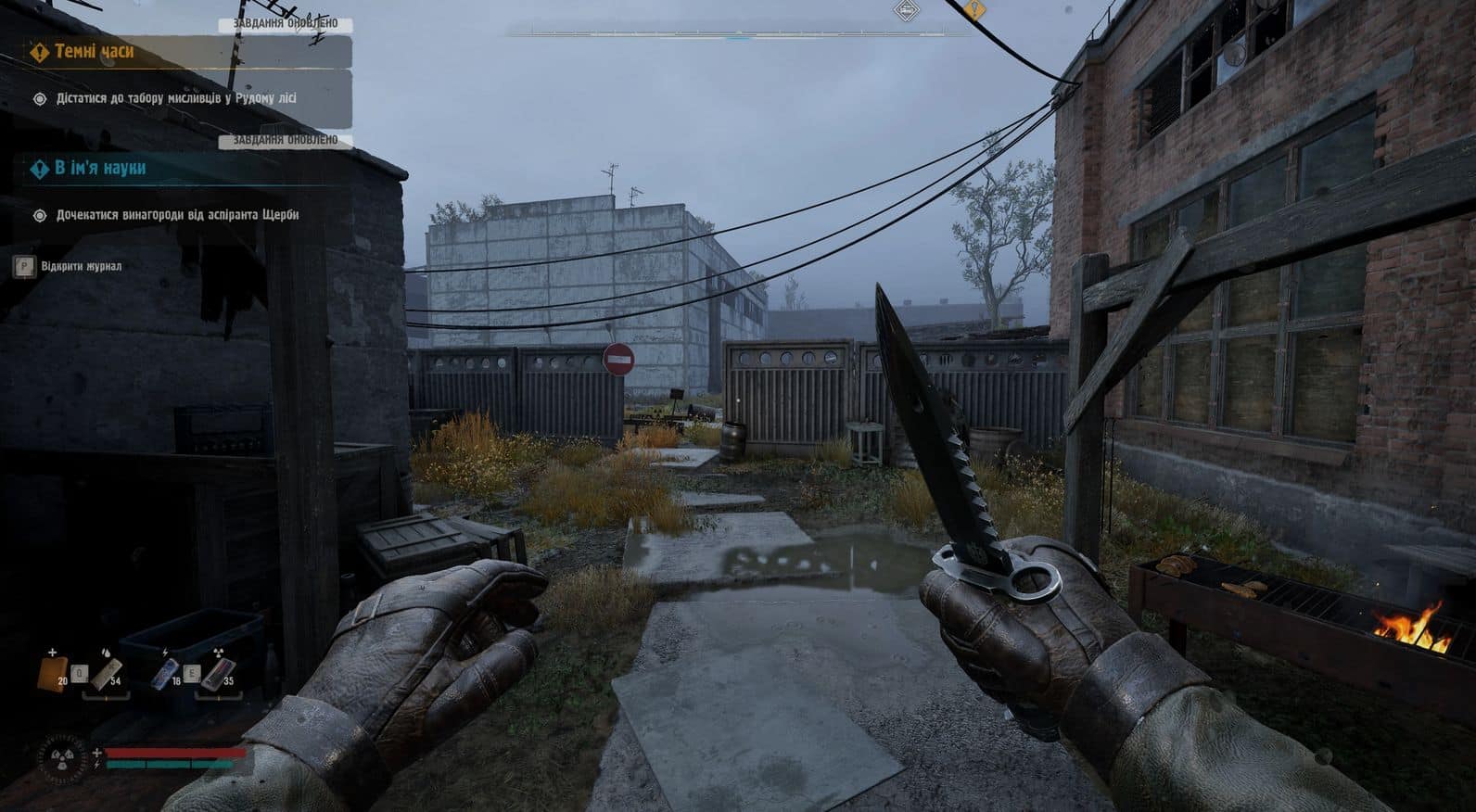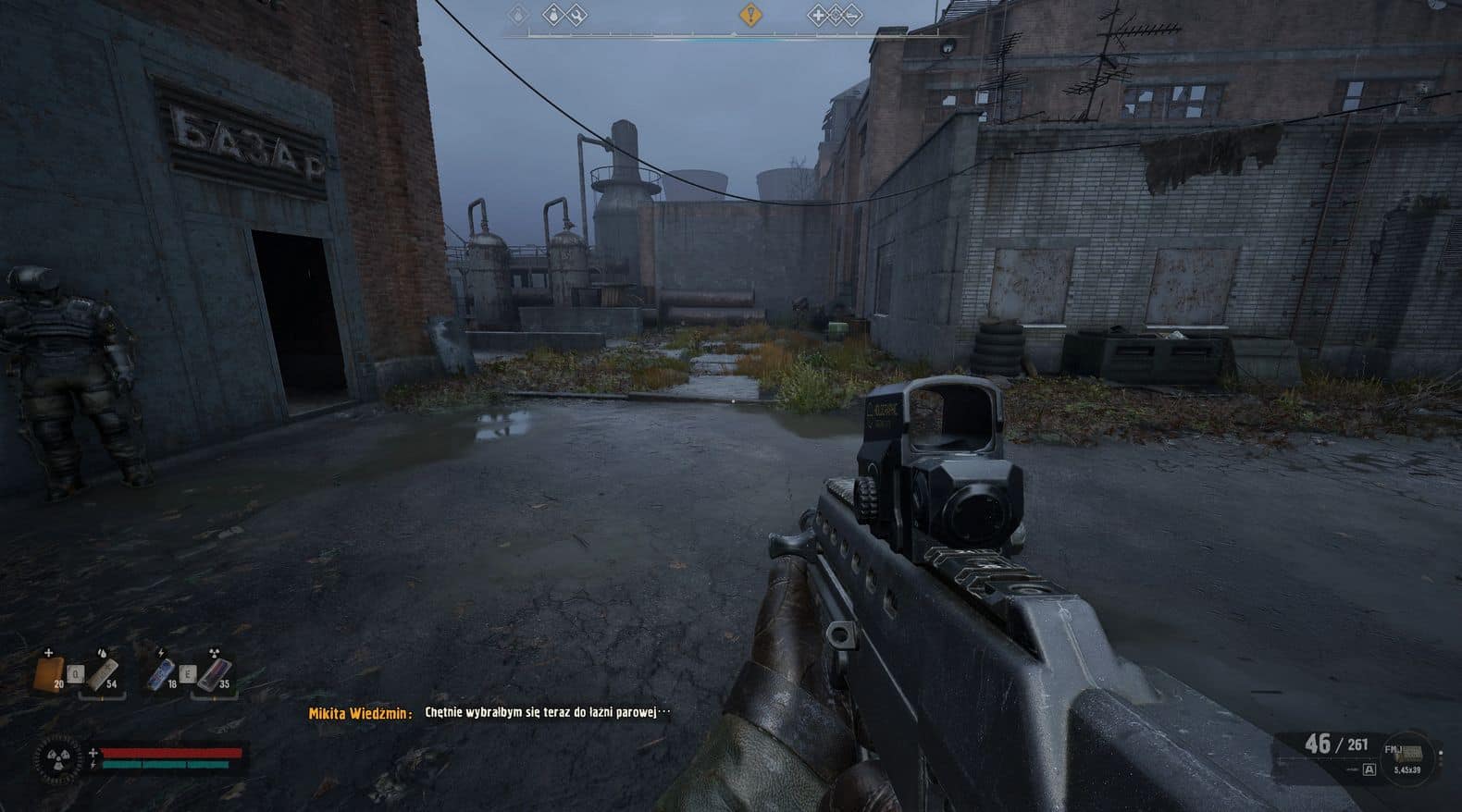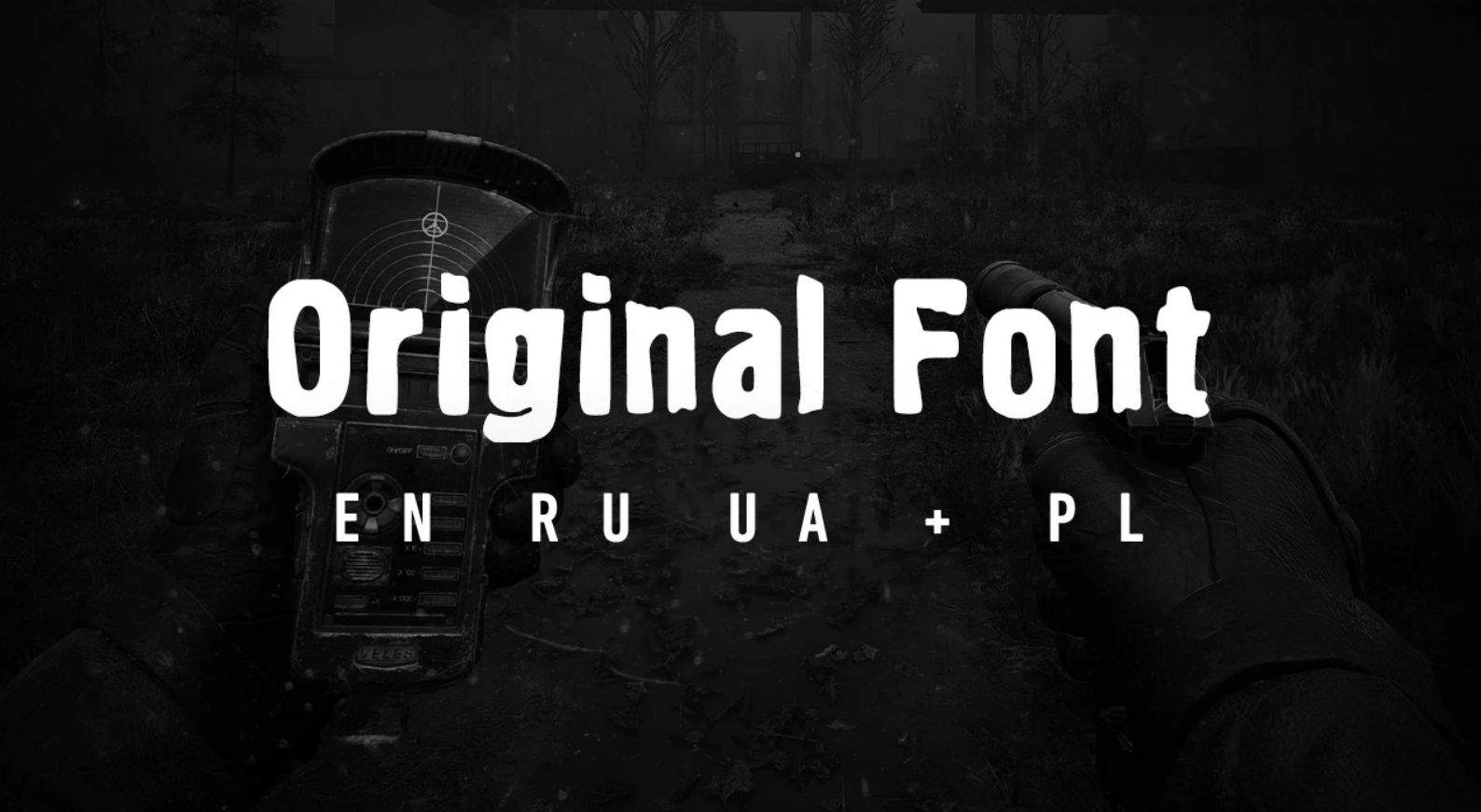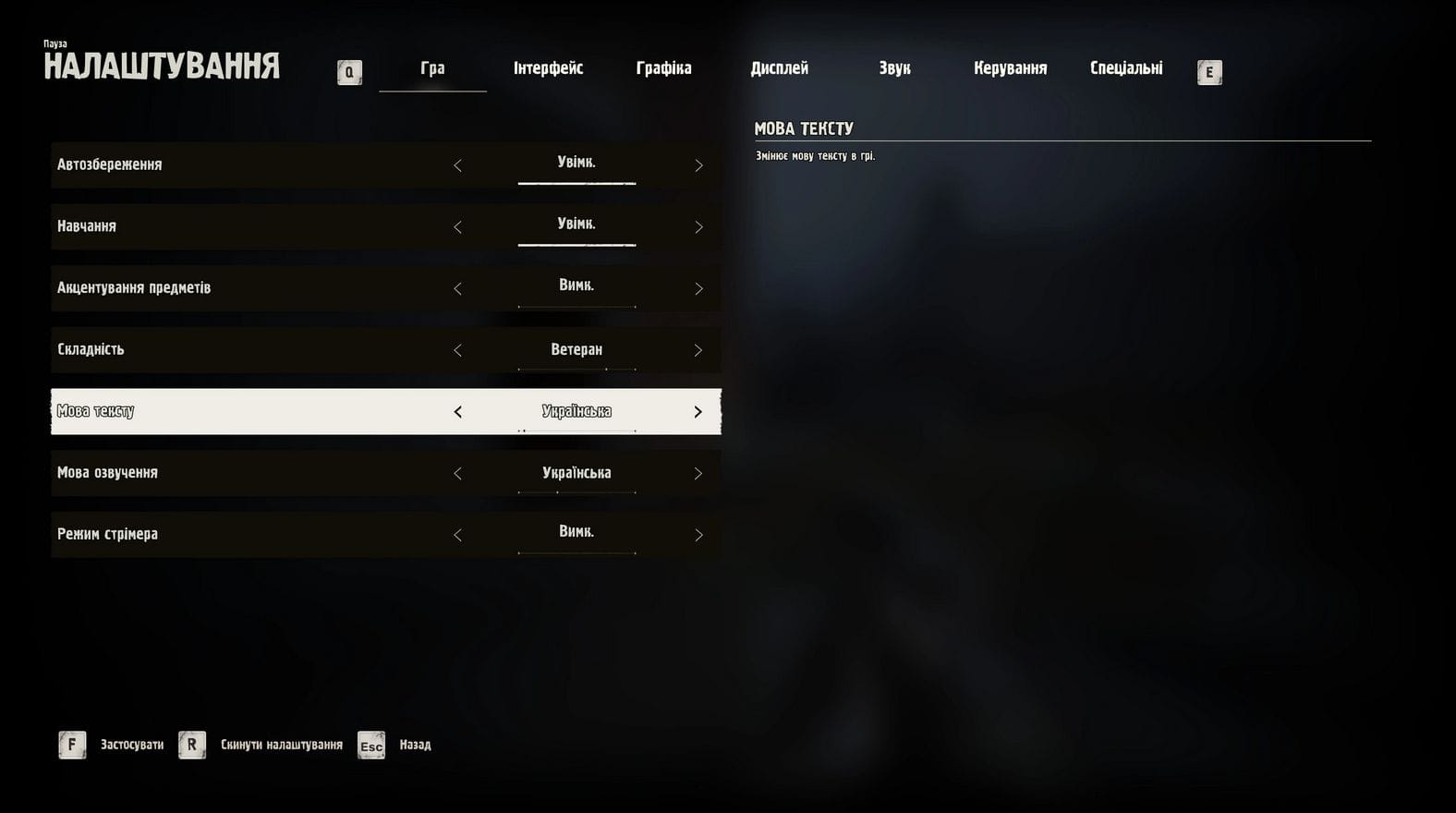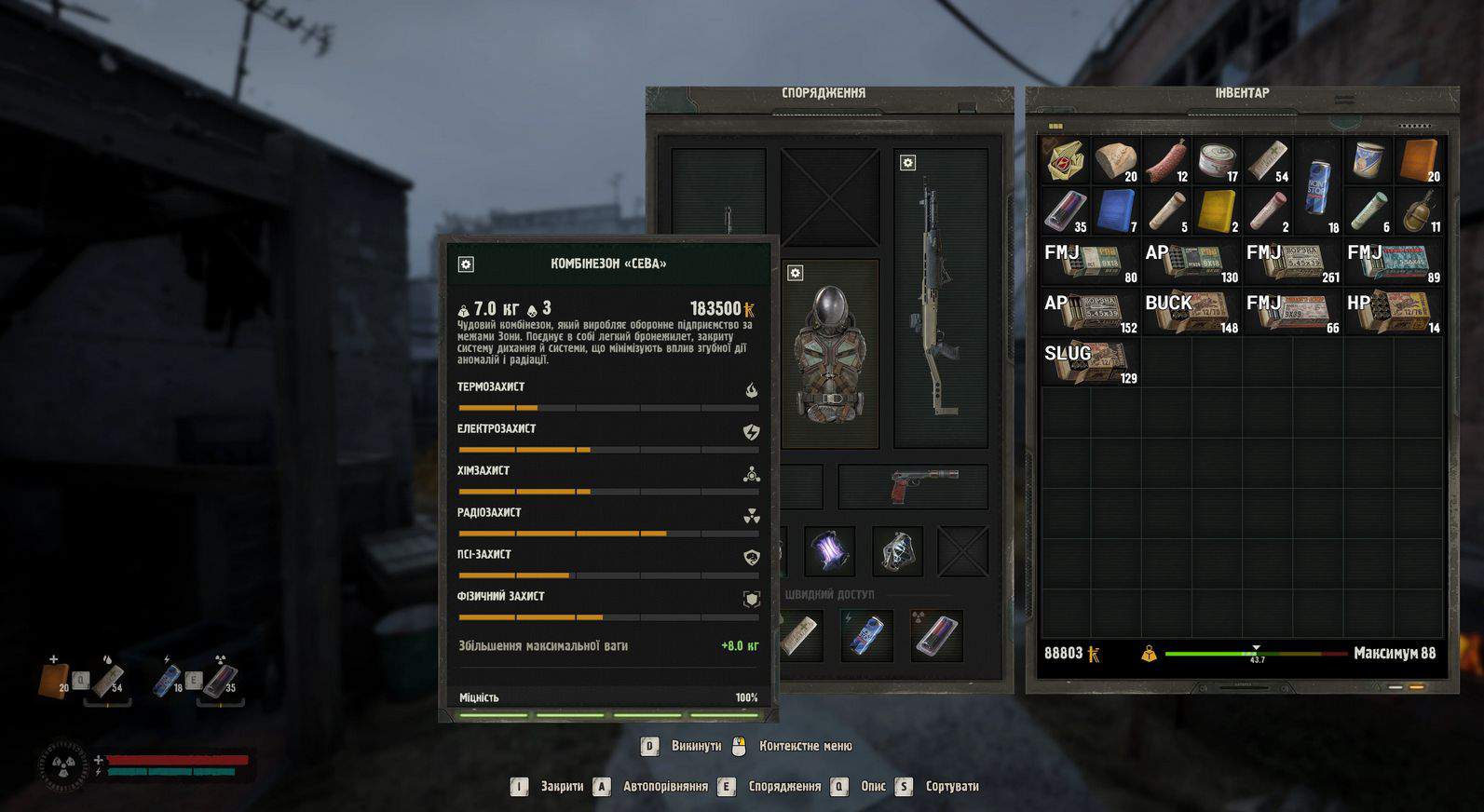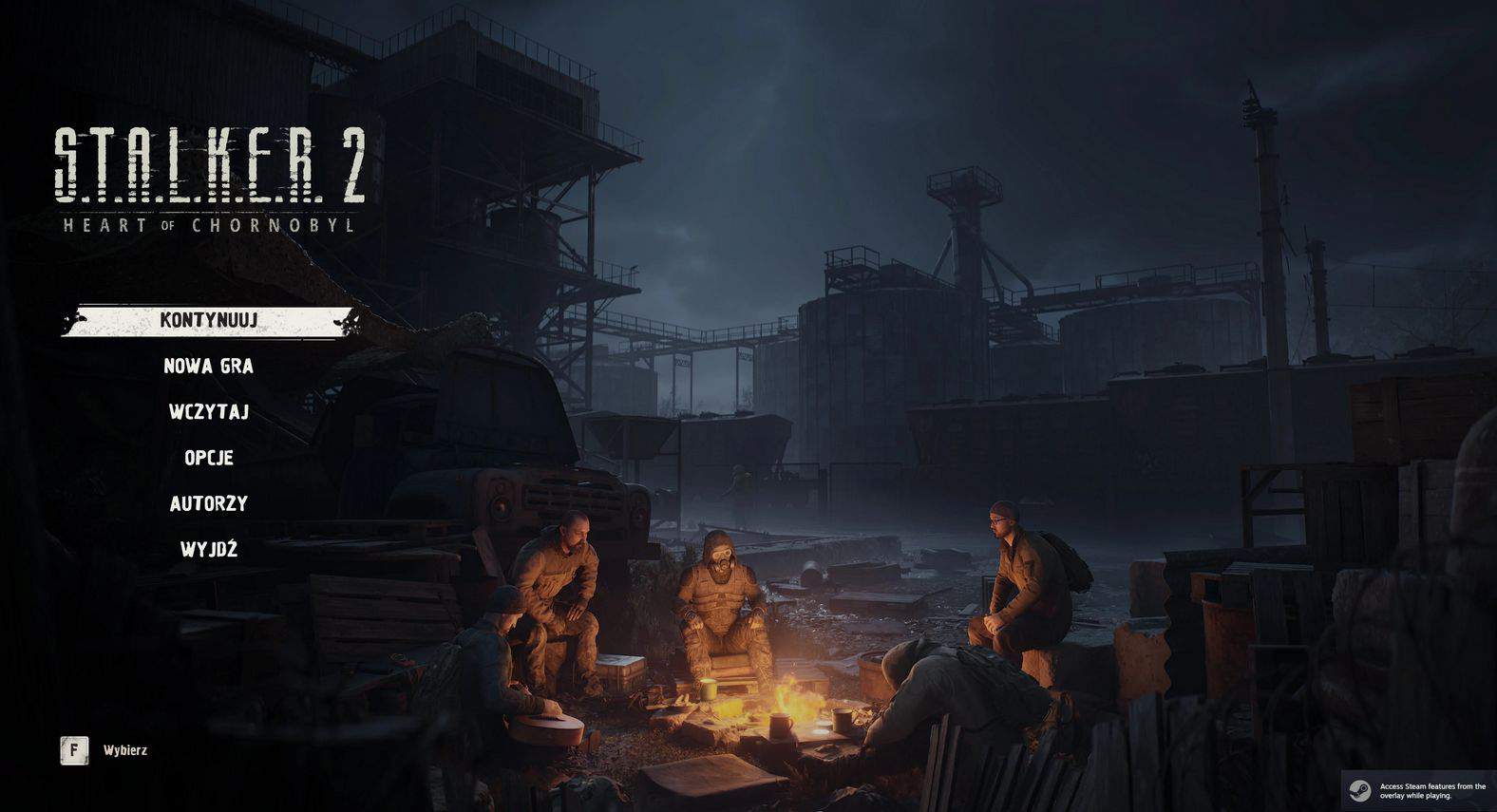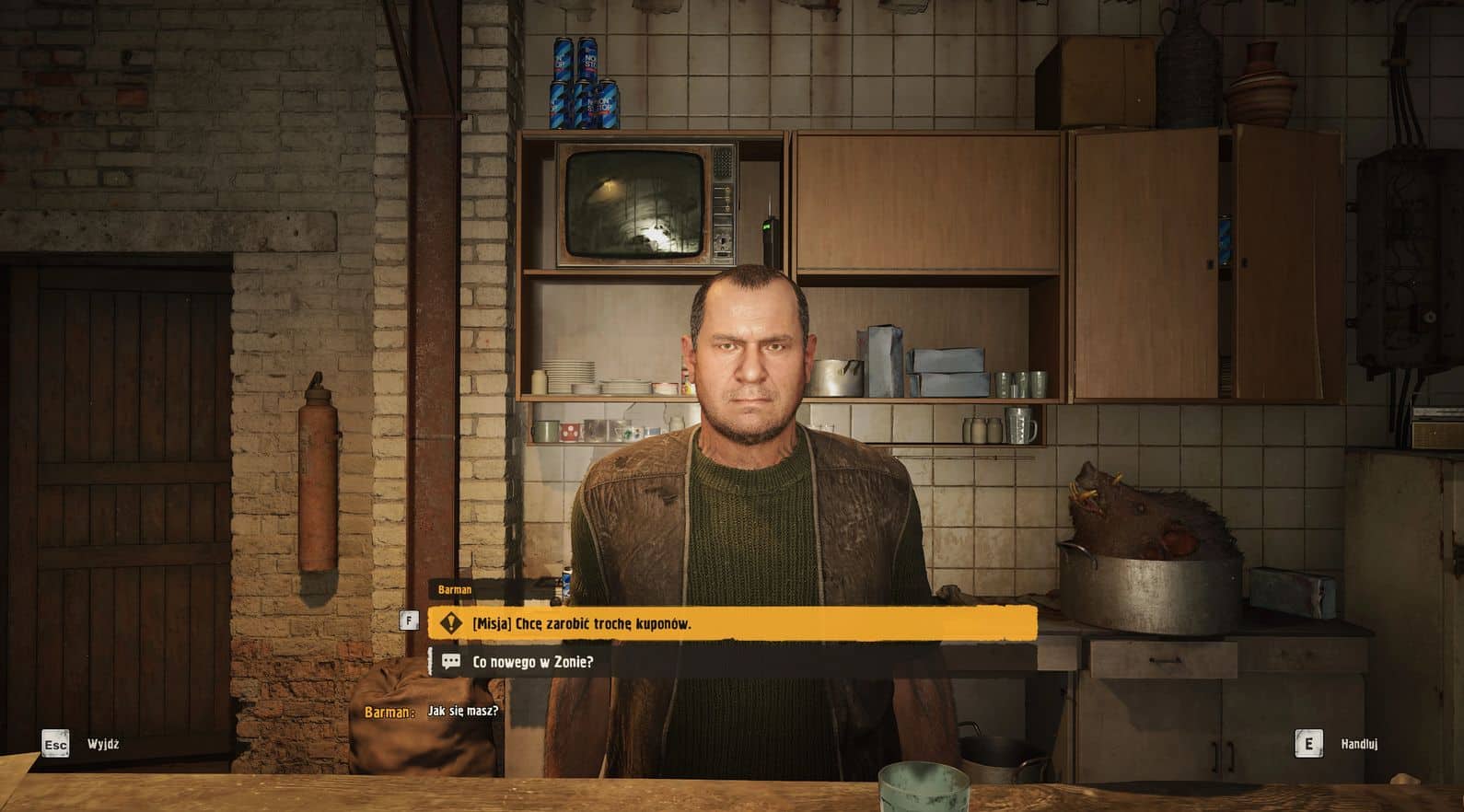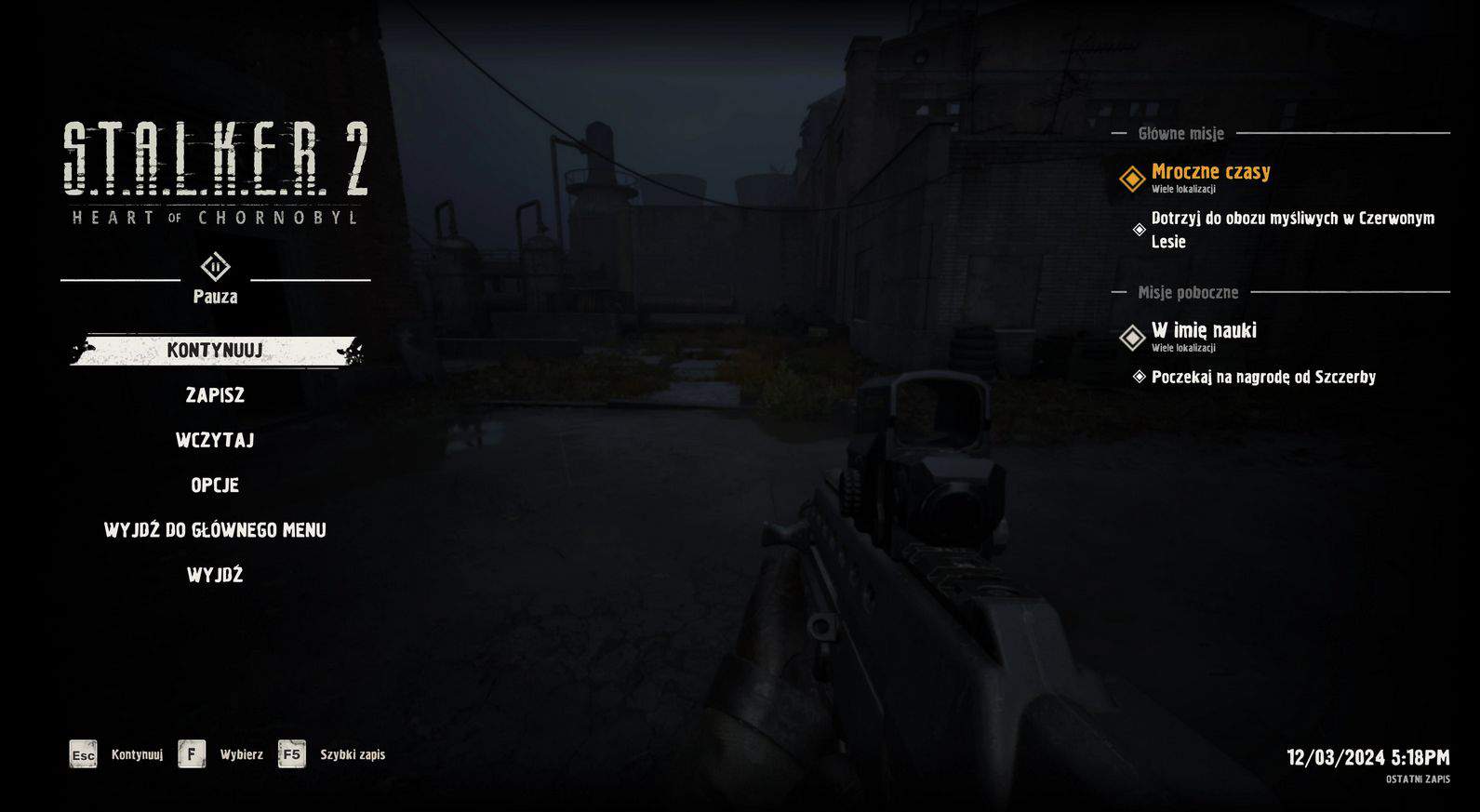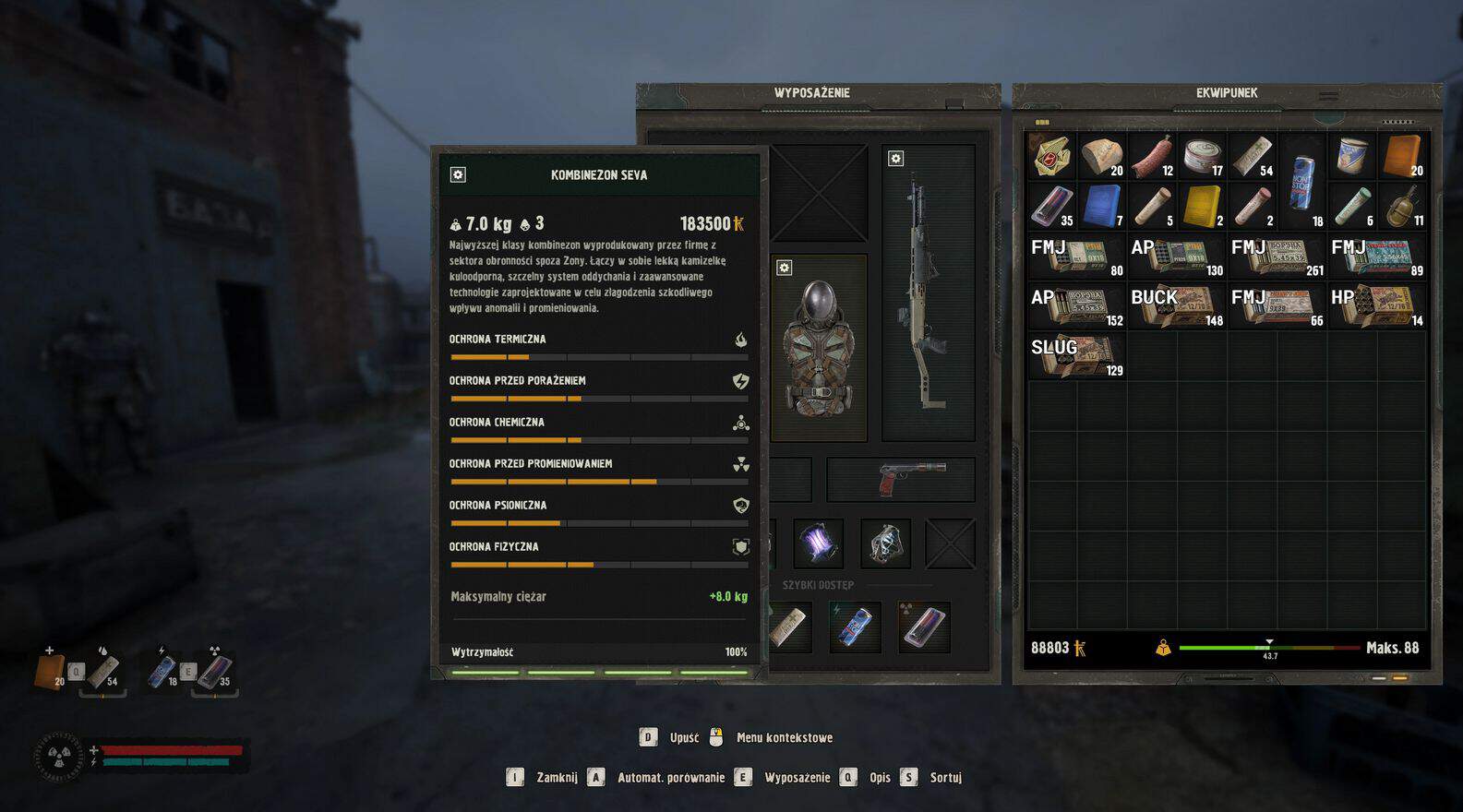
Original Font
Brings back the original font from the STALKER trilogy. Currently supports EN, UA and RU with separate pack with PL glyphs.
Relive the raw, grungy charm of the original games with the Original Font mod! This mod replaces the sleek Oswald and Rubik fonts with the nostalgic and edgy “Graffiti1” font, a design deeply tied to the gritty roots of the game’s aesthetic. By bringing back this bold and expressive typeface, the mod channels the rebellious, urban spirit of the original design, letting players reconnect with the atmosphere that made the classic games so iconic.
Whether you’re a long-time fan yearning for a taste of the past or a new player curious about the game’s origins, this mod delivers a refreshing dose of personality. The Graffiti1 font restores the nostalgic, rough-edged look to menus, dialogue boxes, and UI elements, evoking memories of a time when every detail oozed attitude. It’s the perfect way to blend modern gameplay with a vintage touch that celebrates the game’s legacy.